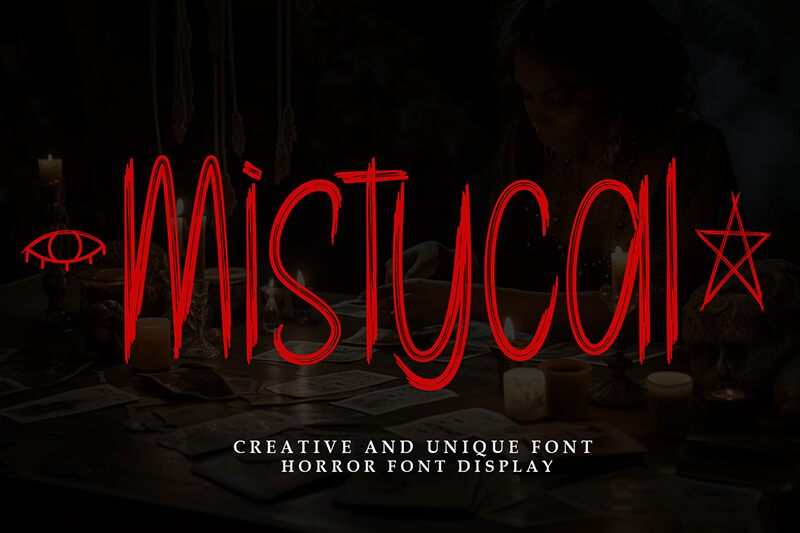
Mistycal
Mistycal font is a condensed brush font created by Andi Moz that brings an artistic flair to your designs. It carries the characteristics of unconventional, textured appearances and sketch-like effects. Together, the special aesthetic components like casual mood, brush pen strokes, and artistic personality create a dynamic appearance suitable for contemporary use.
The free handwritten font can be ideally used in creative branding, packaging design, or typography-focused social media posts across different platforms. Its casual spirit suits music posters as much as body tattoo visuals or marketing billboards where brands make their imprint loudly clear towards the audience.